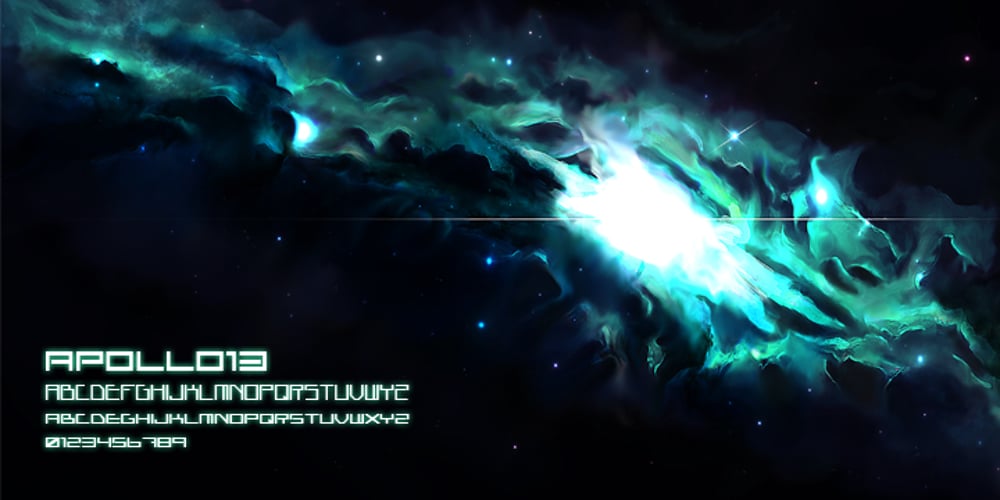
ALT Apollo13 Font Family was designed by Andreas Leonidou and published by ALT. ALT Apollo13 contains 3 styles and family package options. Apollo13 is a custom decorative typeface for any type of graphic design.